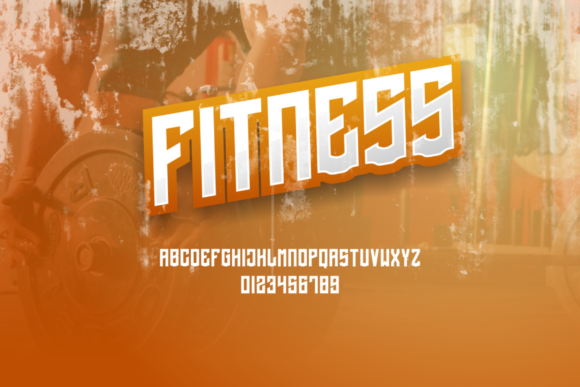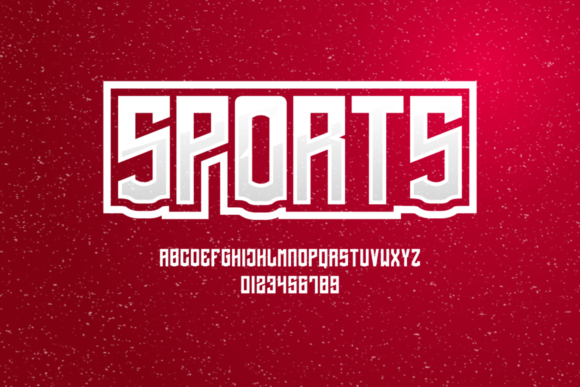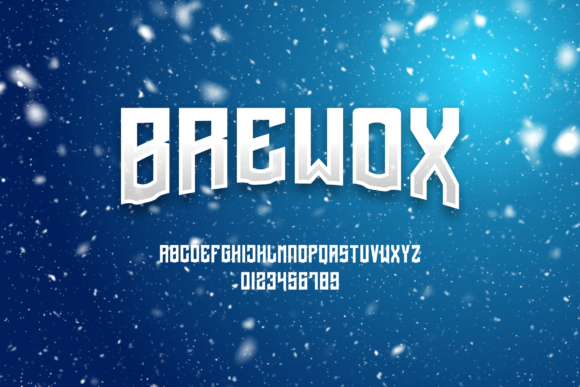
Introduction to Brewox Font
Brewox is a bold and authentic display font.
The font is suitable for any branding project like logo, t-shirt printing, sporting design, and many more It will look outstanding in a wide range of contexts.